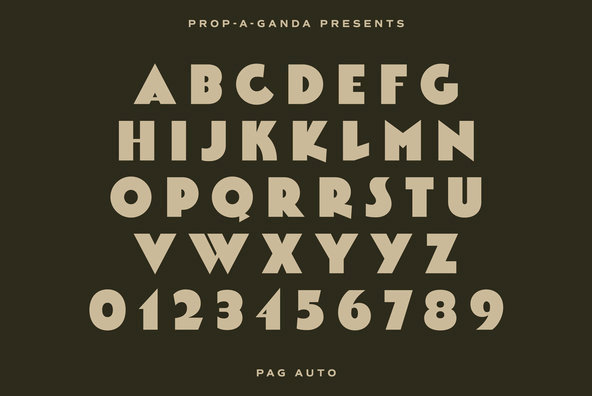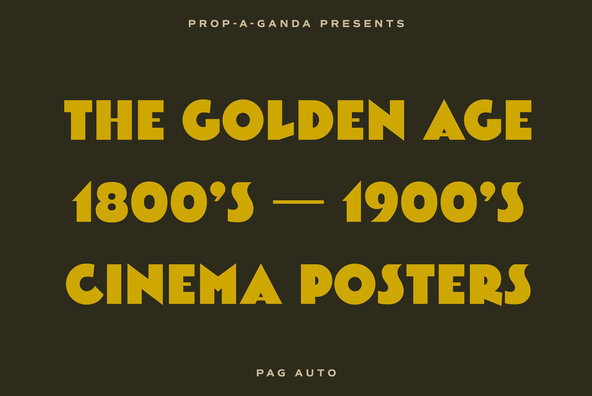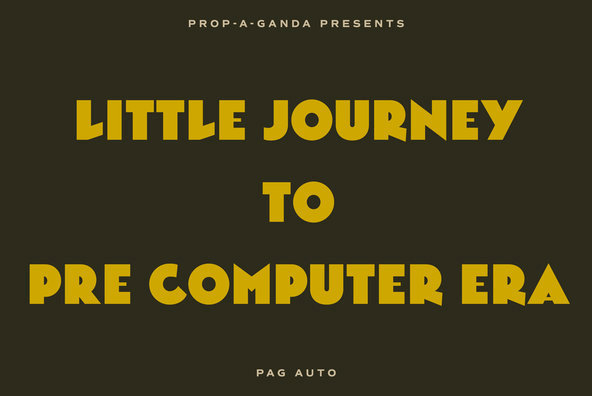
PAG Auto
Foundry: Ryoichi Tsunekawa
Inspired by and based on retro propaganda posters, movie posters, shopfront lettering and advertisements of the early 20th century.